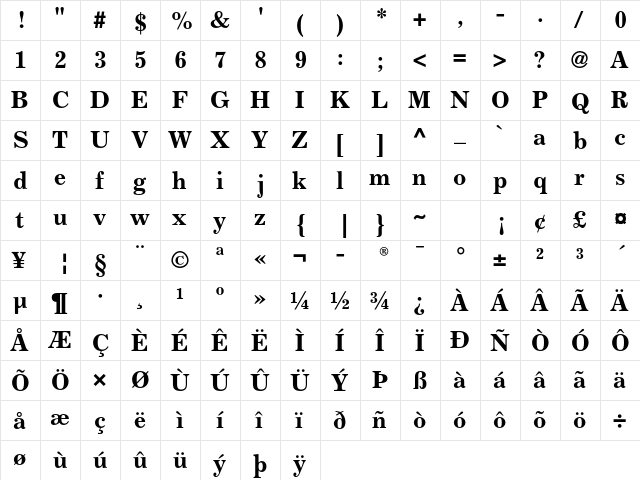
Excelsior LT Std Bold
| Designer | Chauncey H. Griffith |
Design Context for Excelsior LT Std Typeface
Excelsior LT Std offers clean, dependable letterforms without strong stylistic allegiance, making it a practical choice for designers who need flexibility. Its bold stroke weight gives it real presence on the page.